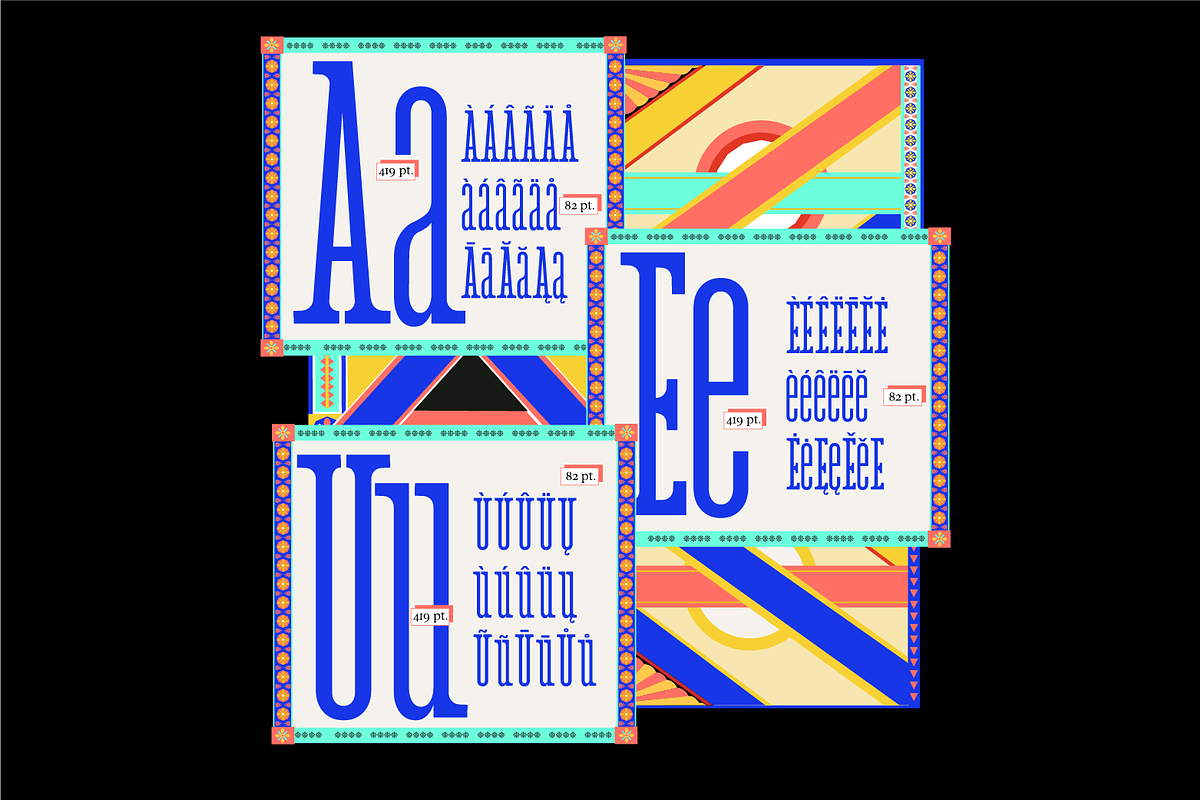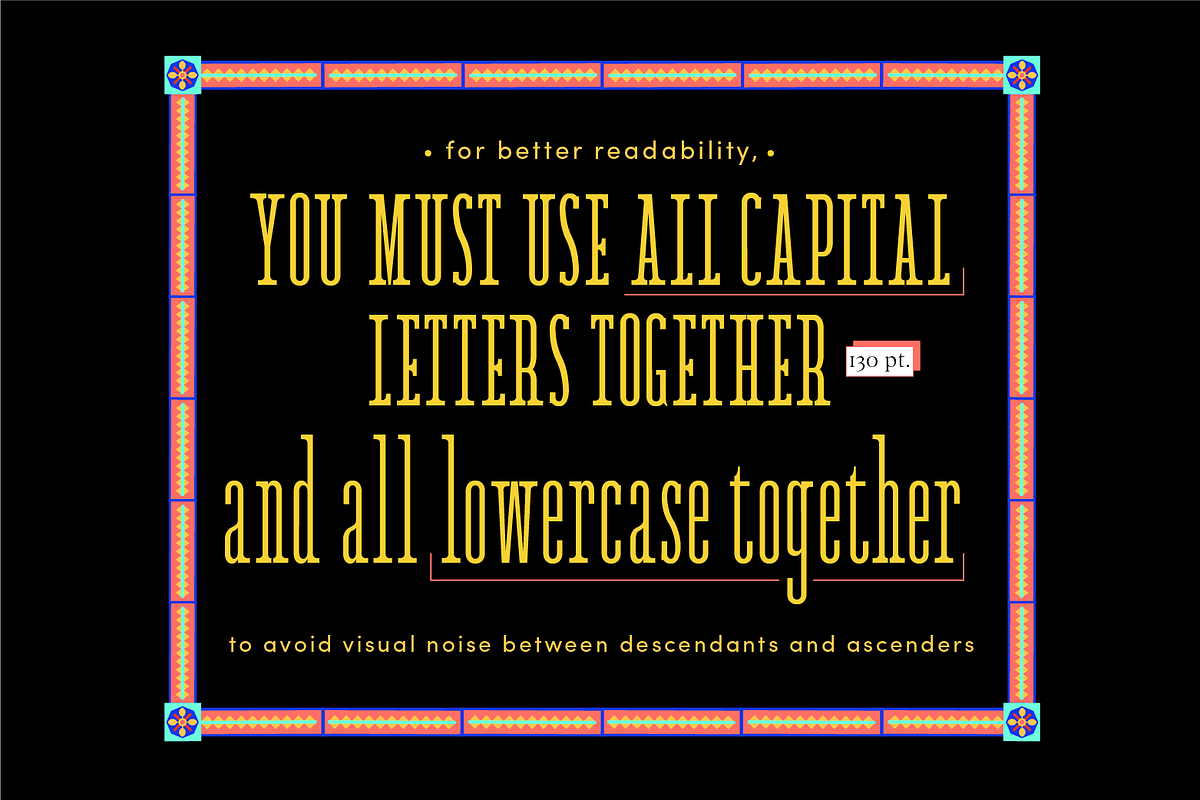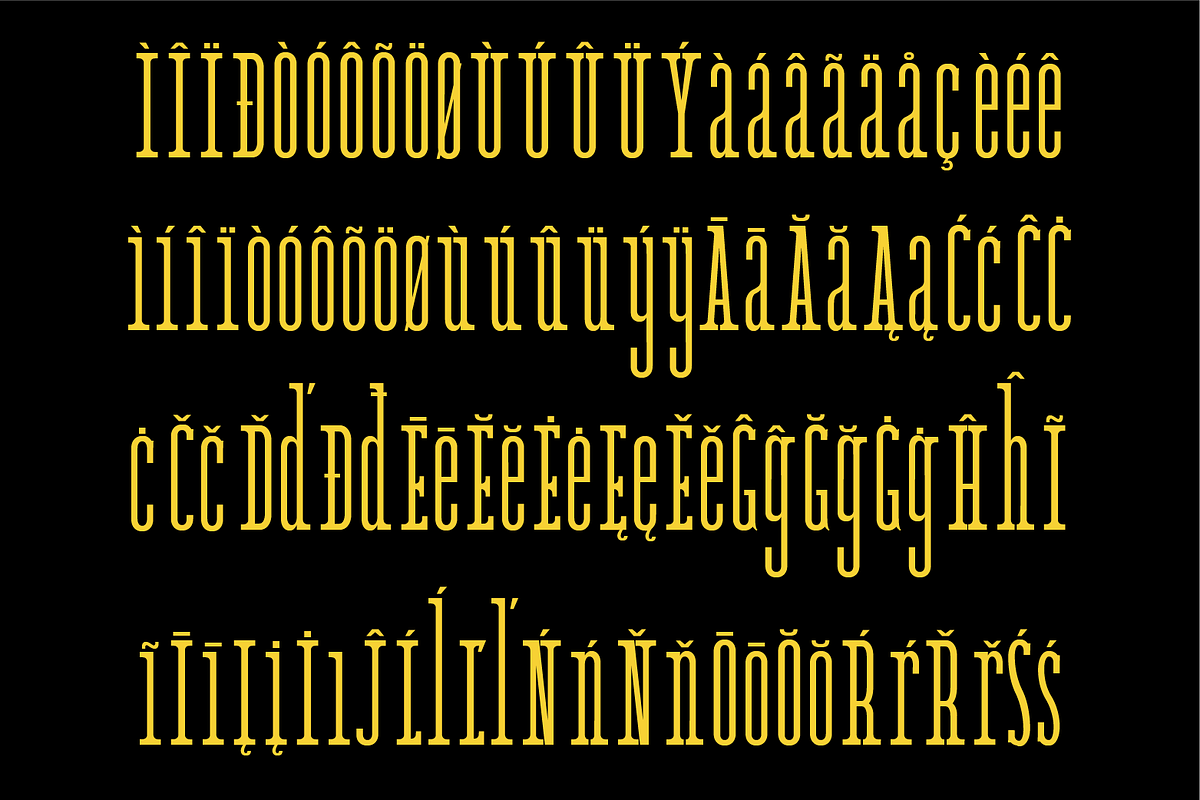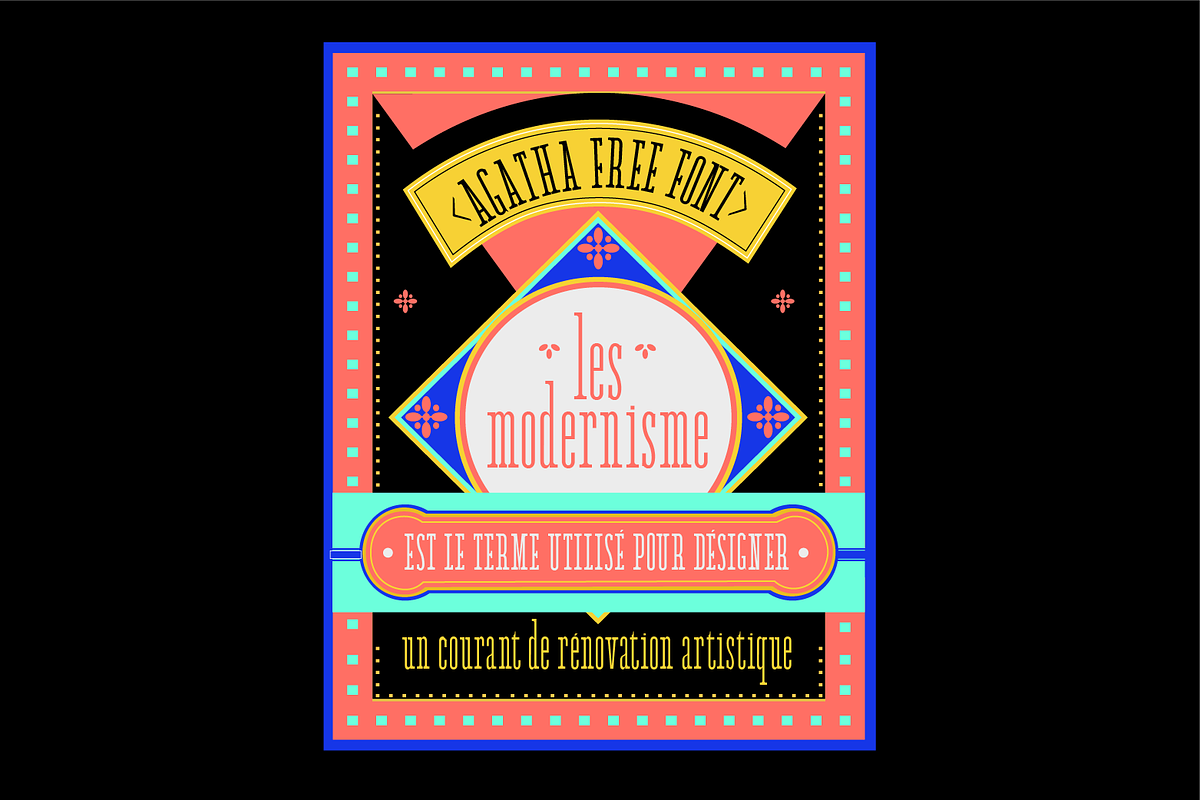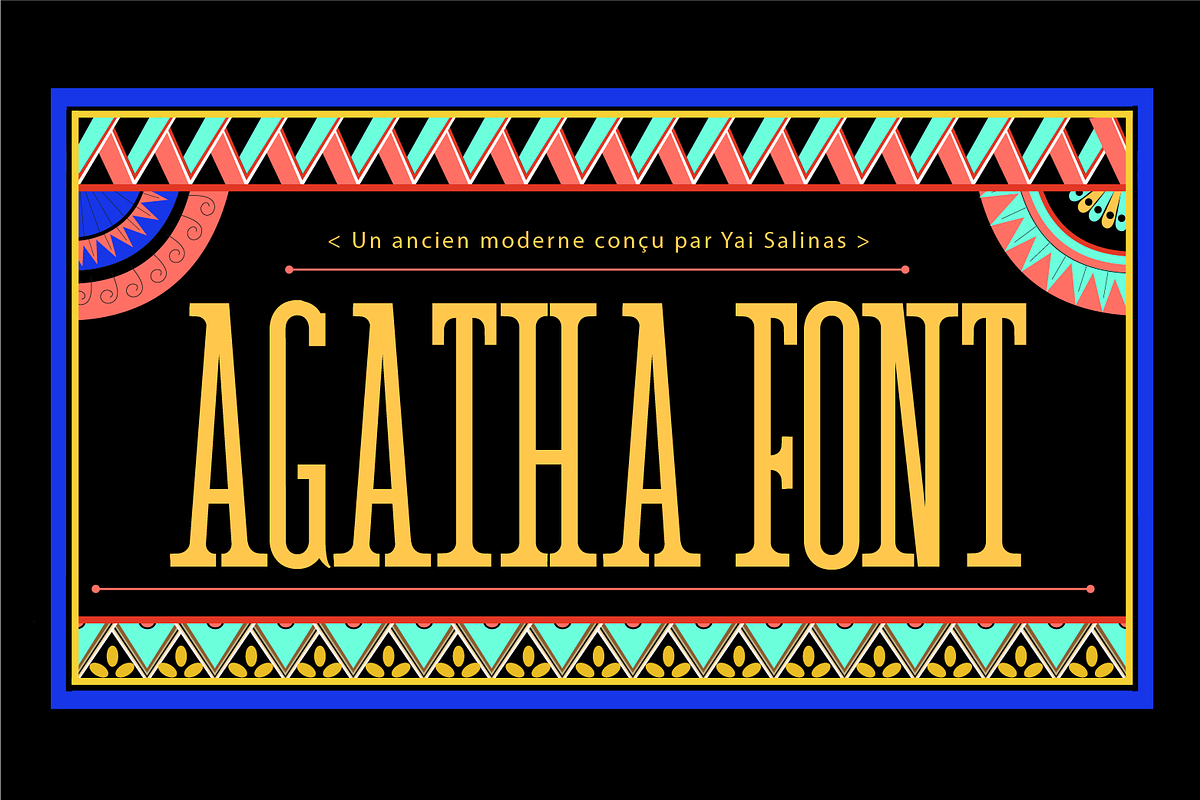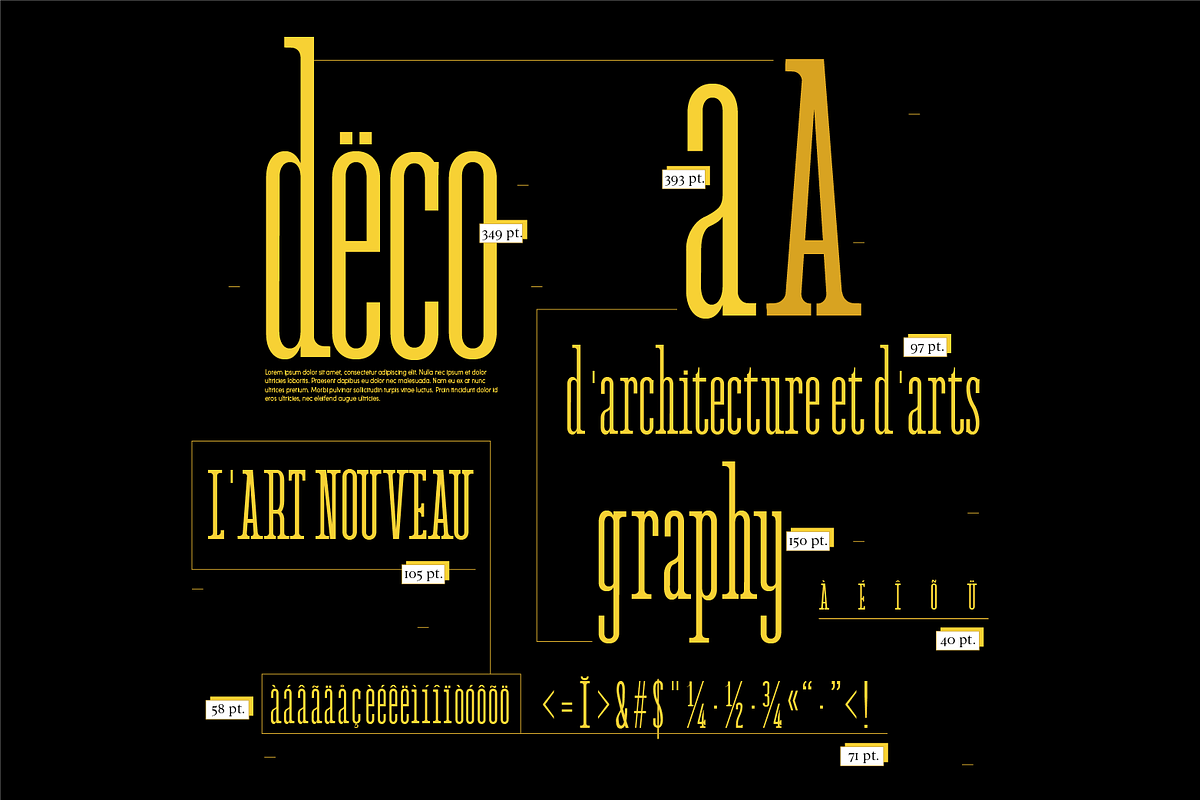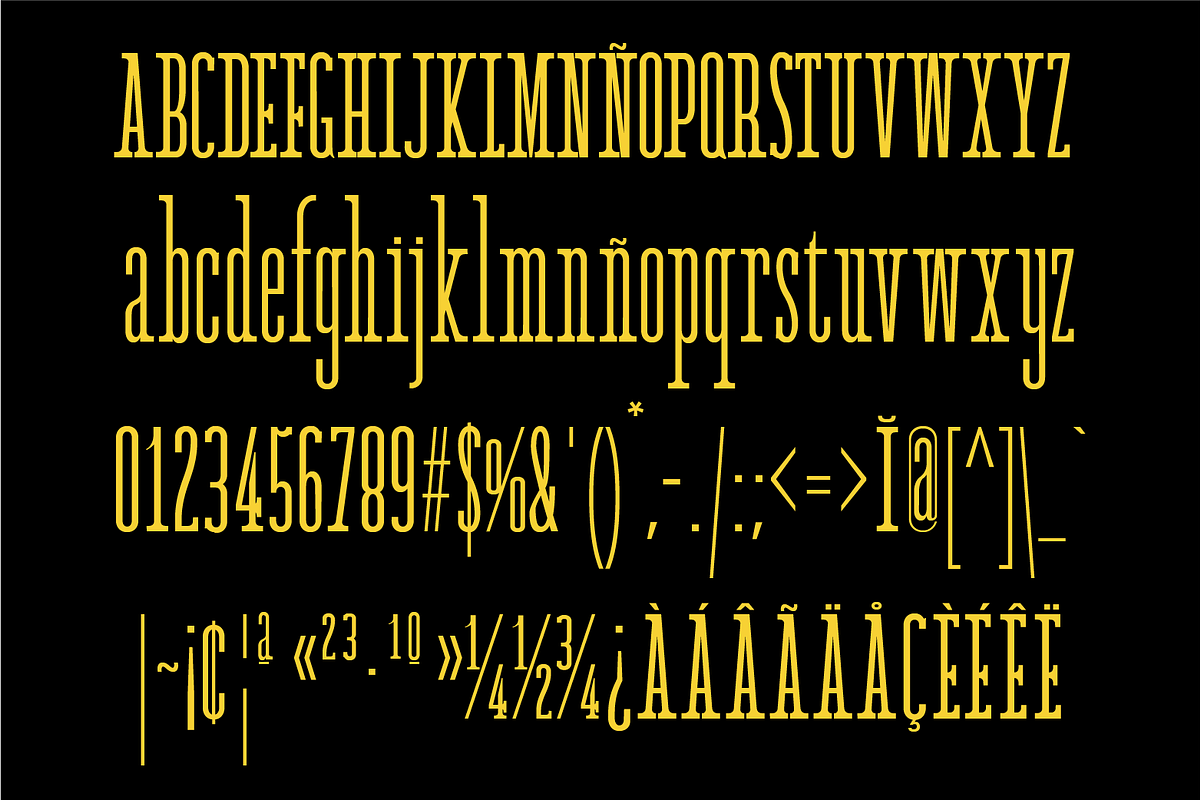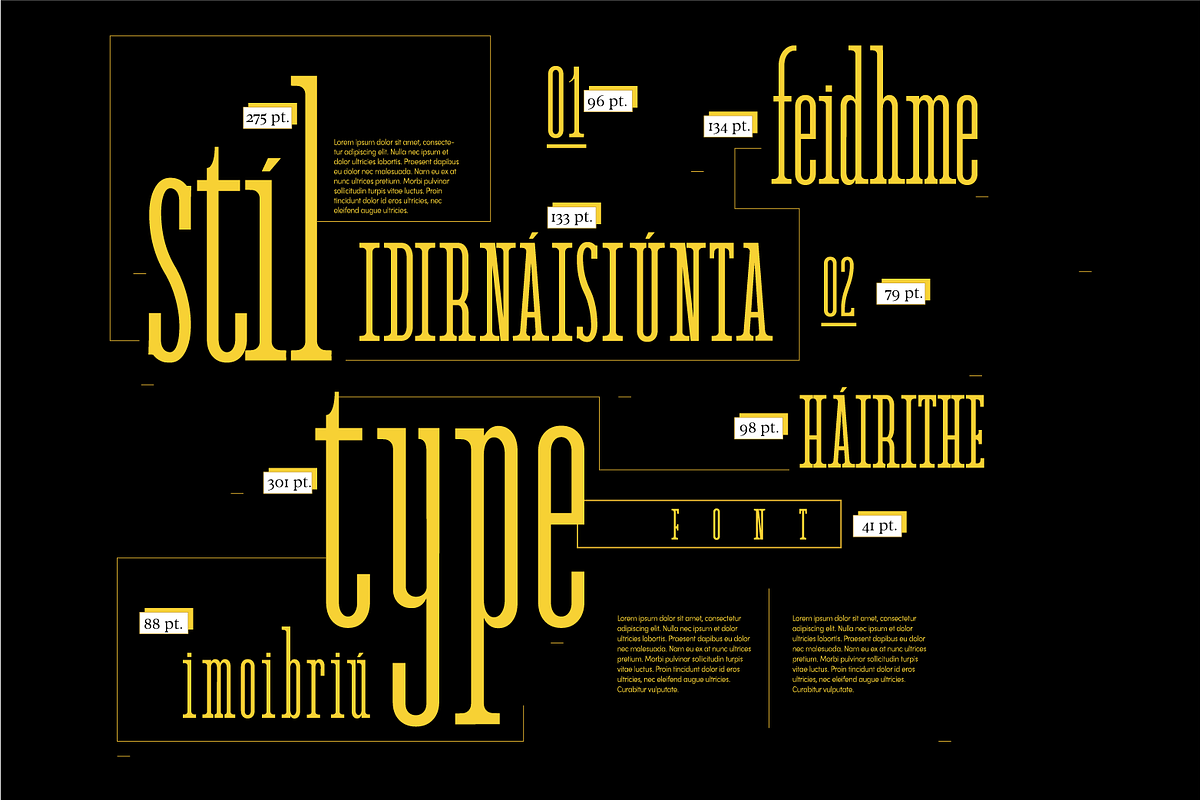
Agatha Font
Beautiful and modern book antique style typography. It contains:
Why Agatha Font is worth a look
Agatha Font by yaisalinas fits naturally into Branding, posters, packaging, typography.